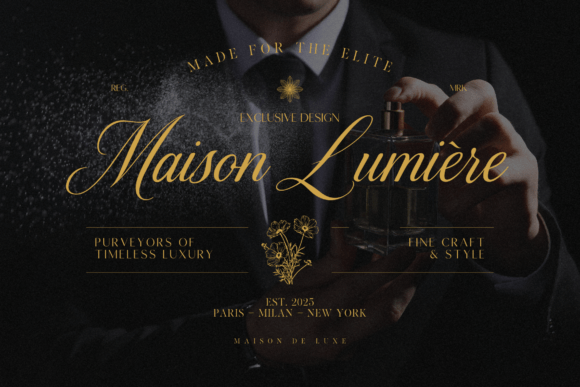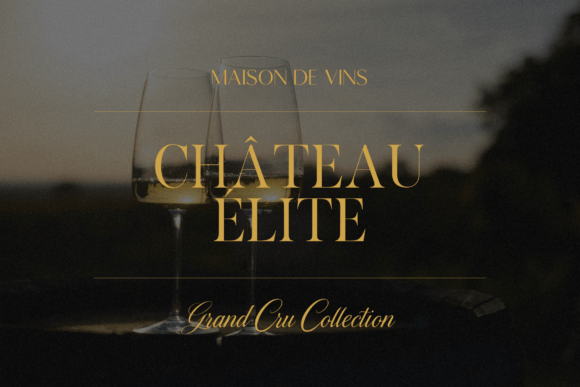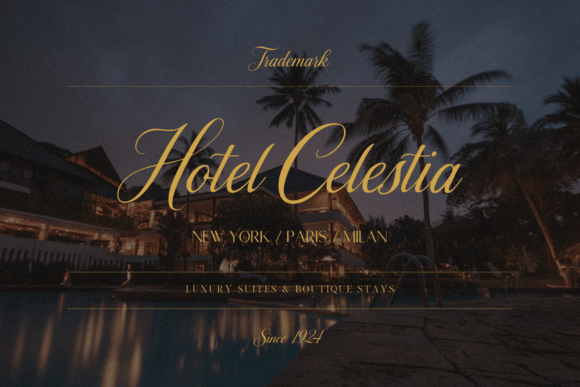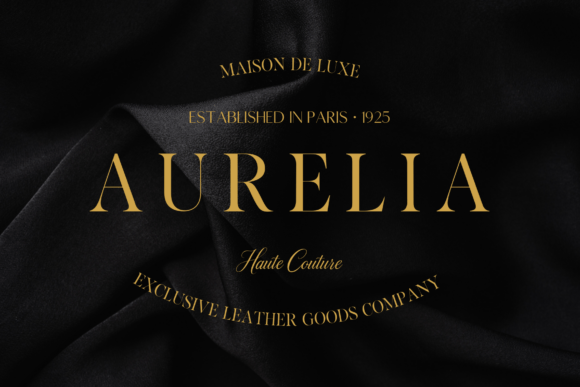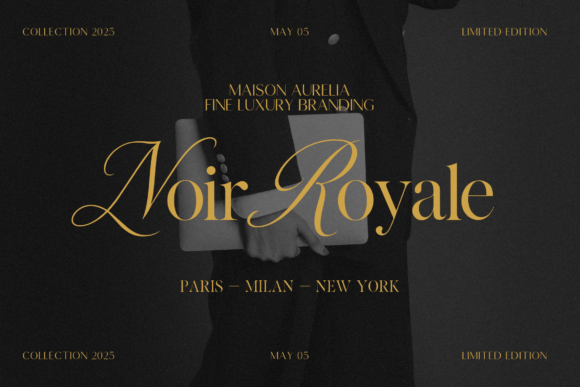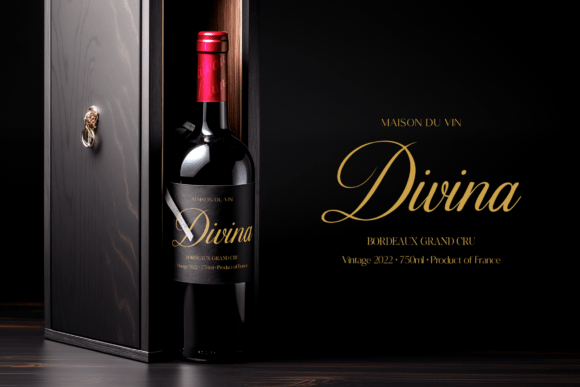
Unleashing Timeless Elegance: The Auraluxe Trio Font
As a designer, there’s nothing quite like the thrill of crafting a piece that perfectly captures the essence of luxury and sophistication. Whether it’s a high-end fashion brand or a premium spirits label, your goal is to create a visual identity that exudes refinement and prestige. And that’s where the Auraluxe Trio Font comes in – a trinity of fonts that effortlessly blends traditional charm with modern minimalism.
The Auraluxe Trio Font is more than just a collection of fonts – it’s a tool for designers to elevate their work to new heights. With its elegant Script, polished Serif, and streamlined Sans, this trio provides the perfect balance of sophistication and versatility. Whether you’re working on a perfume packaging design, a high-fashion editorial, or a luxurious stationery project, the Auraluxe Trio Font is the ideal choice to add a touch of exclusivity and opulence to your work.
Auraluxe Trio Font Key Features
- Font Family: Auraluxe Trio, a unique and versatile font family designed for music and art enthusiasts.
- Font Size: 1,032 glyphs, providing a wide range of characters and symbols for creative expression.
- Unique Characteristics: The Auraluxe Trio font features a blend of modern and vintage elements, with intricate details and subtle nuances that evoke a sense of nostalgia and sophistication.
Auraluxe Trio Font Review
Overall, I’m really enjoying working with the Auraluxe Trio Font. Here are some of the things that I think work well:
- ✨ Beautiful, elegant design: The Auraluxe Trio Font has a unique, high-end aesthetic that’s perfect for luxury brands and upscale projects.
- ✨ Excellent legibility: The font is highly legible, even at small sizes, making it a great choice for body text and headlines.
- ✨ Versatile: The Auraluxe Trio Font comes in three different weights (Light, Regular, and Bold), making it easy to use in a variety of design contexts.
- ⚠️ Limited language support: The Auraluxe Trio Font only includes support for Latin-based languages, which may be a problem for designers working with non-Latin scripts.
- ⚠️ No web font options: The font is only available for desktop use, which may be a limitation for designers who need to use it on the web.
Overall, I think the Auraluxe Trio Font is a great choice for designers who need a high-end, elegant font for luxury or upscale projects. While it may have some limitations, its beauty and versatility make it a solid choice for many design applications.
Getting the Most Out of Auraluxe Trio
Here are some tips to get the most out of the Auraluxe Trio font:
- Use the font in combination
Monserrat is a sans-serif font designed by Julieta Ulanovsky. It is a modern and sleek font that works well for titles, headings, and body text. Montserrat is a great alternative to Auraluxe Trio Font for designers who want a clean and minimalist look. Unlike Auraluxe Trio Font, Montserrat has a more geometric and urban feel, making it perfect for modern and tech-related designs.
Great Vibes is a script font designed by Pizzay. It is a beautiful and elegant font that works well for titles, quotes, and other decorative text. Great Vibes is a great alternative to Auraluxe Trio Font for designers who want a more whimsical and creative look. Unlike Auraluxe Trio Font, Great Vibes has a more fluid and cursive feel, making it perfect for designs that require a touch of sophistication and elegance.
Yes, the Auraluxe Trio Font is a highly customizable OpenType font, allowing you to take advantage of advanced features like ligatures, swashes, and stylistic sets. You can use font editing software like FontLab or Glyphs to create custom variations and styles.